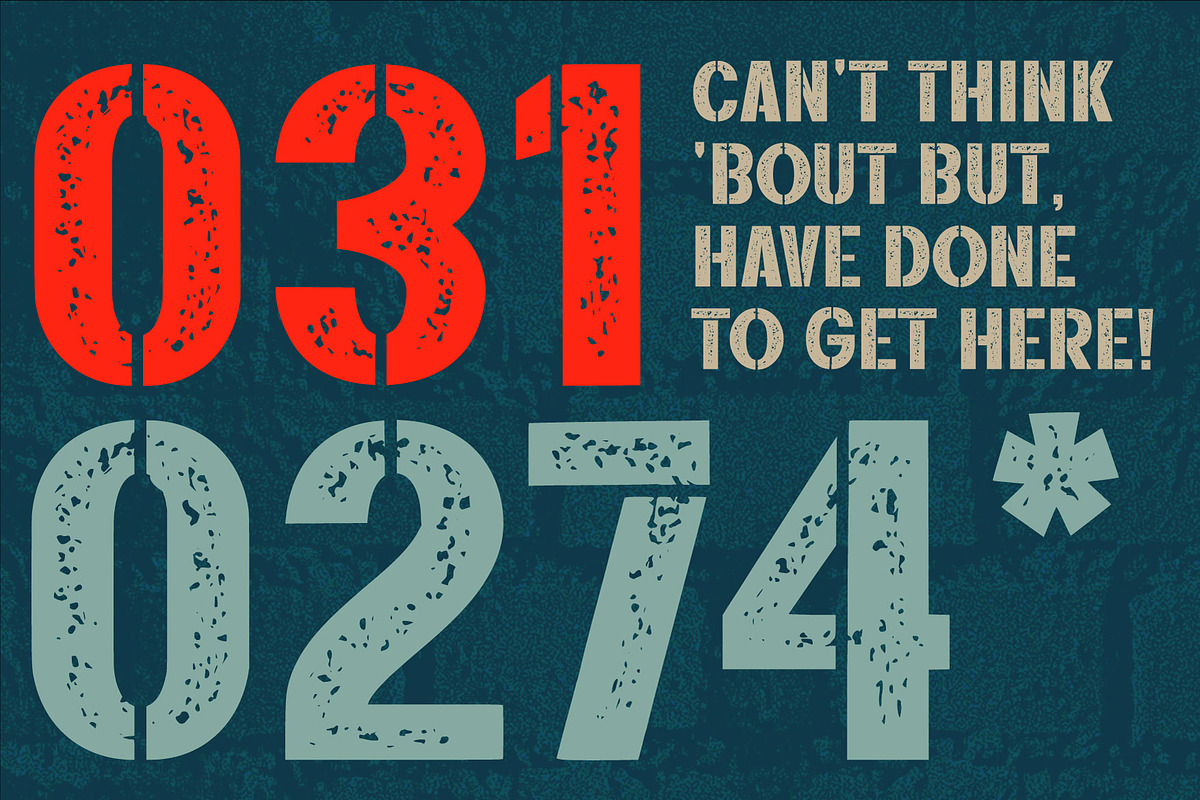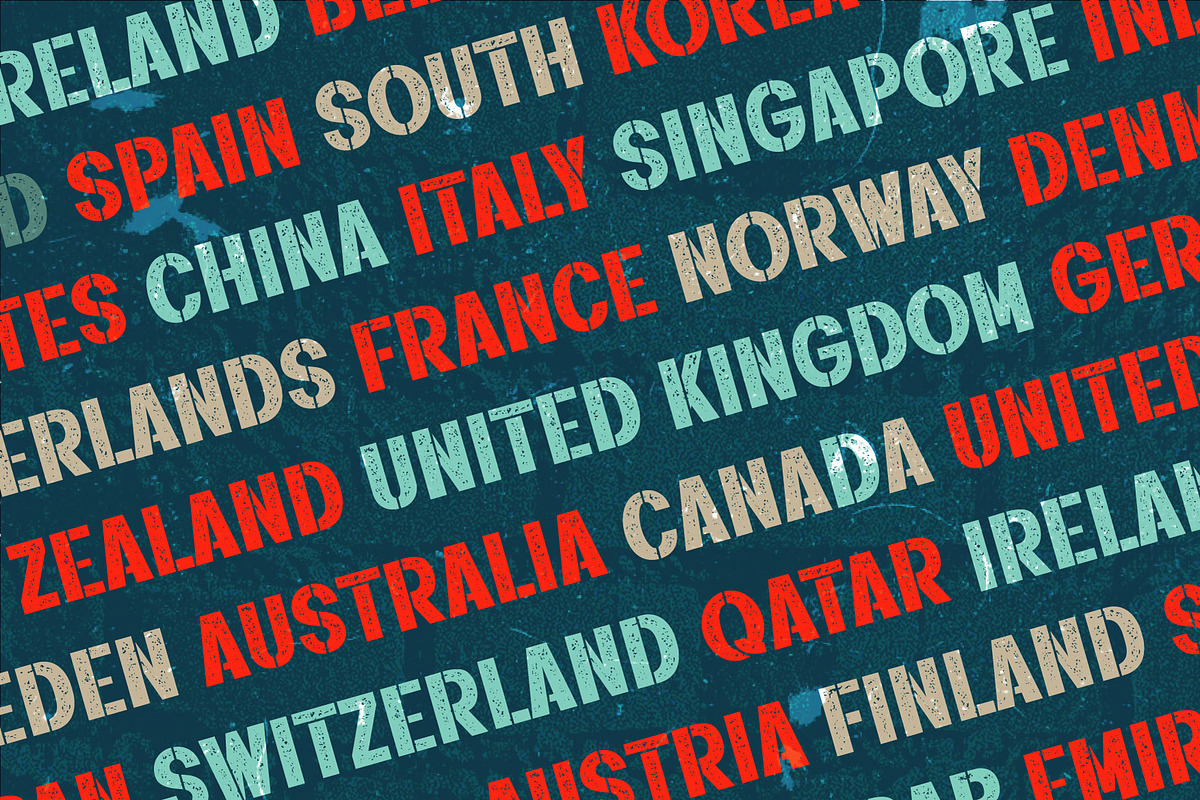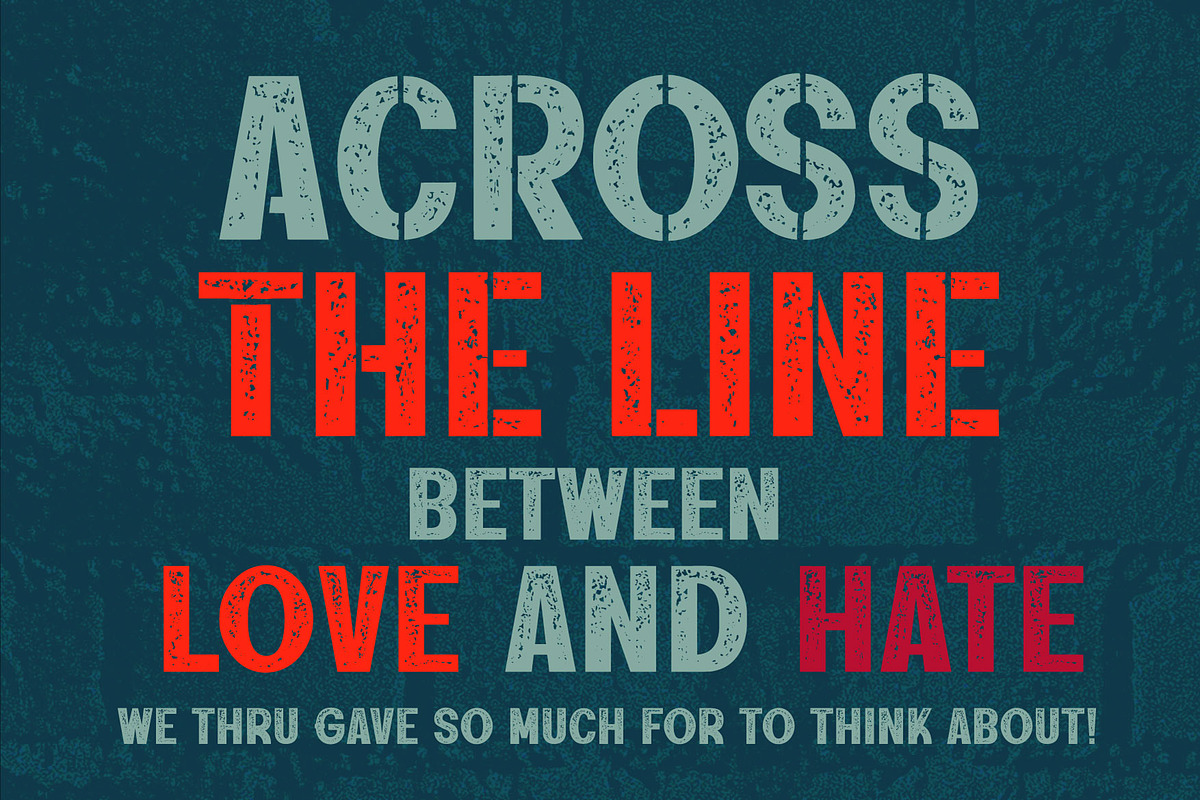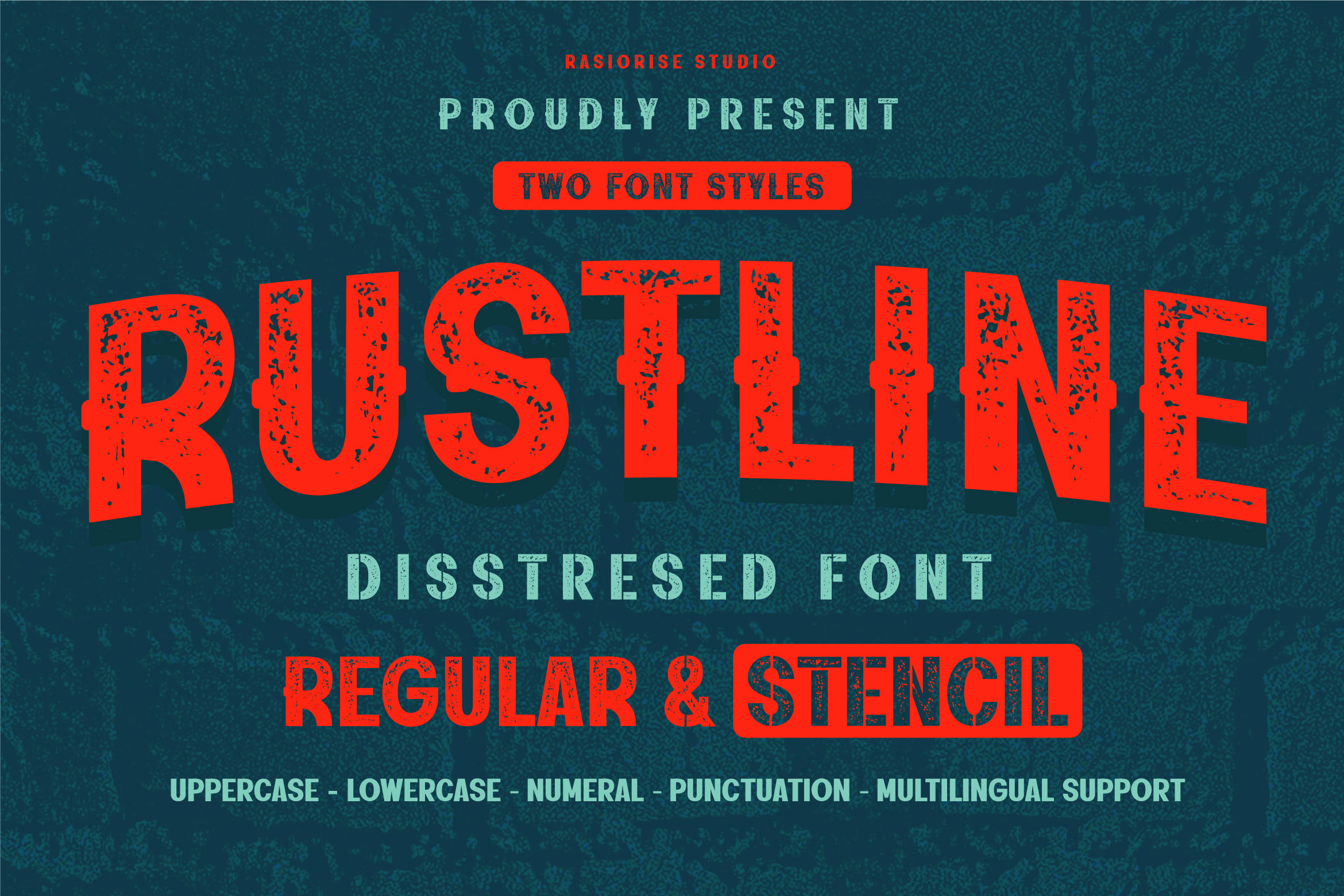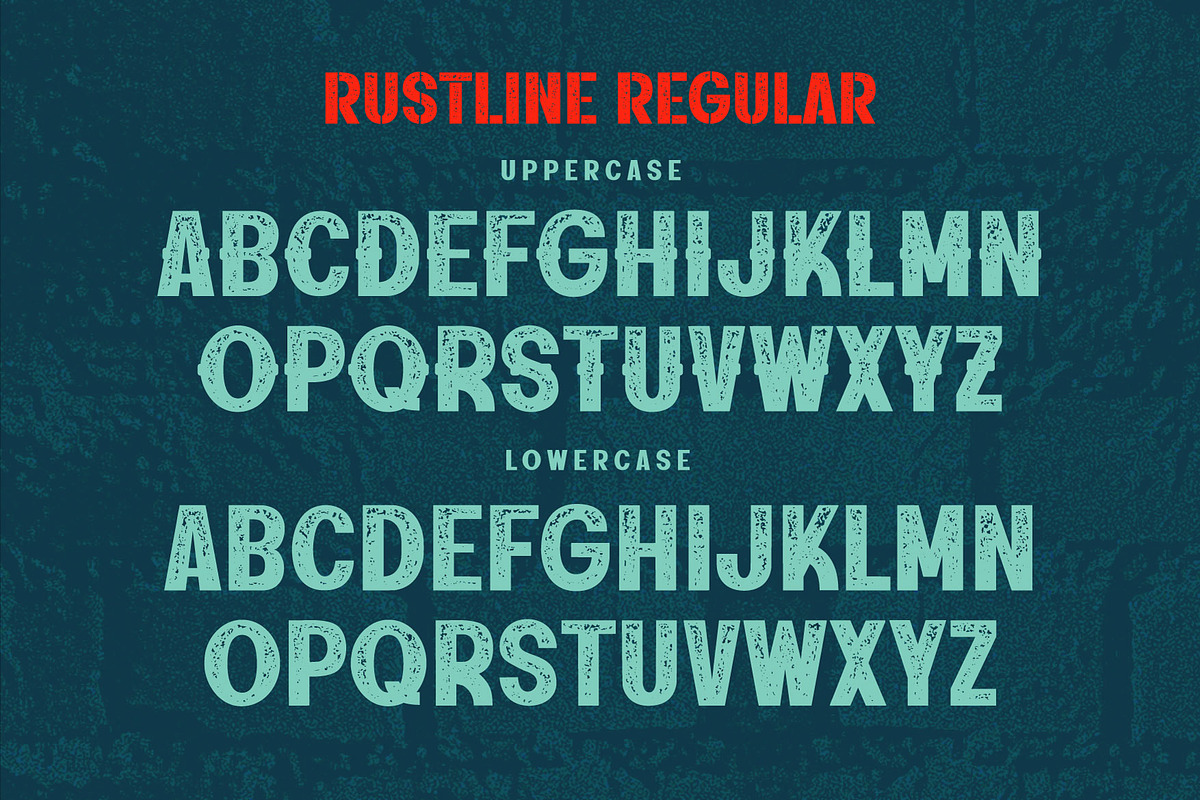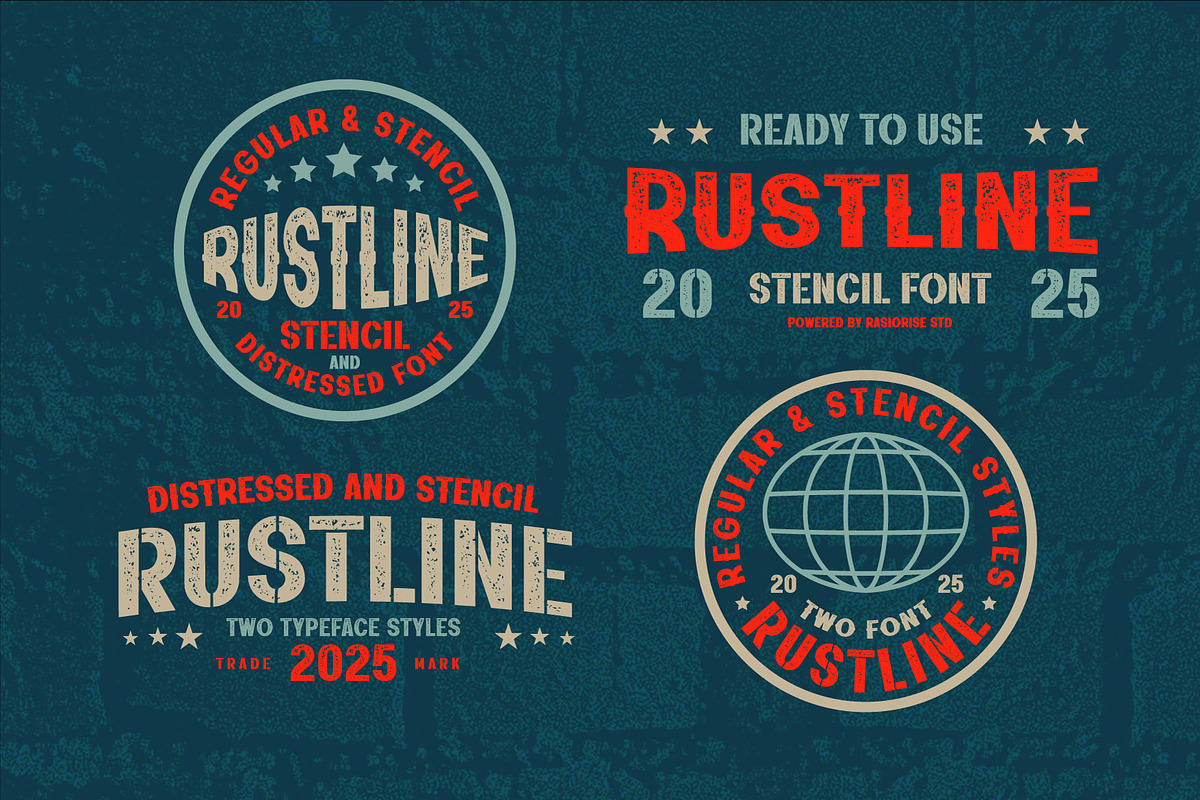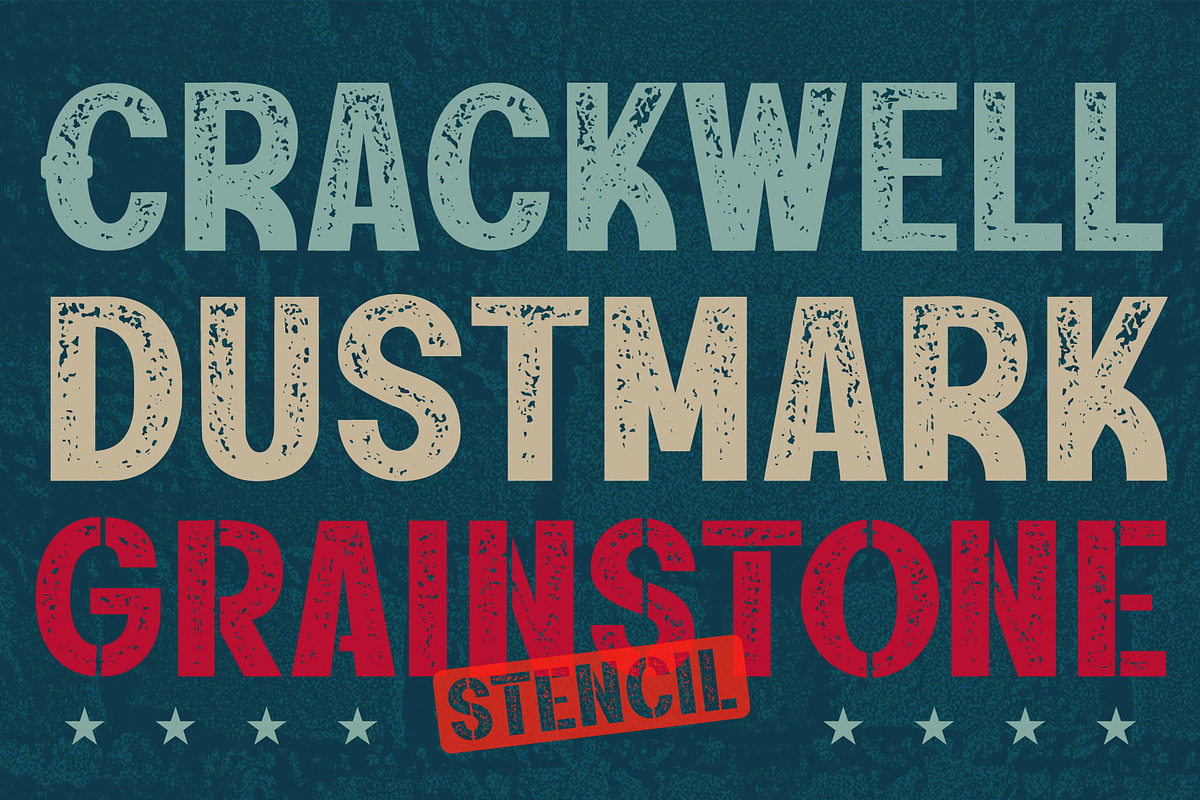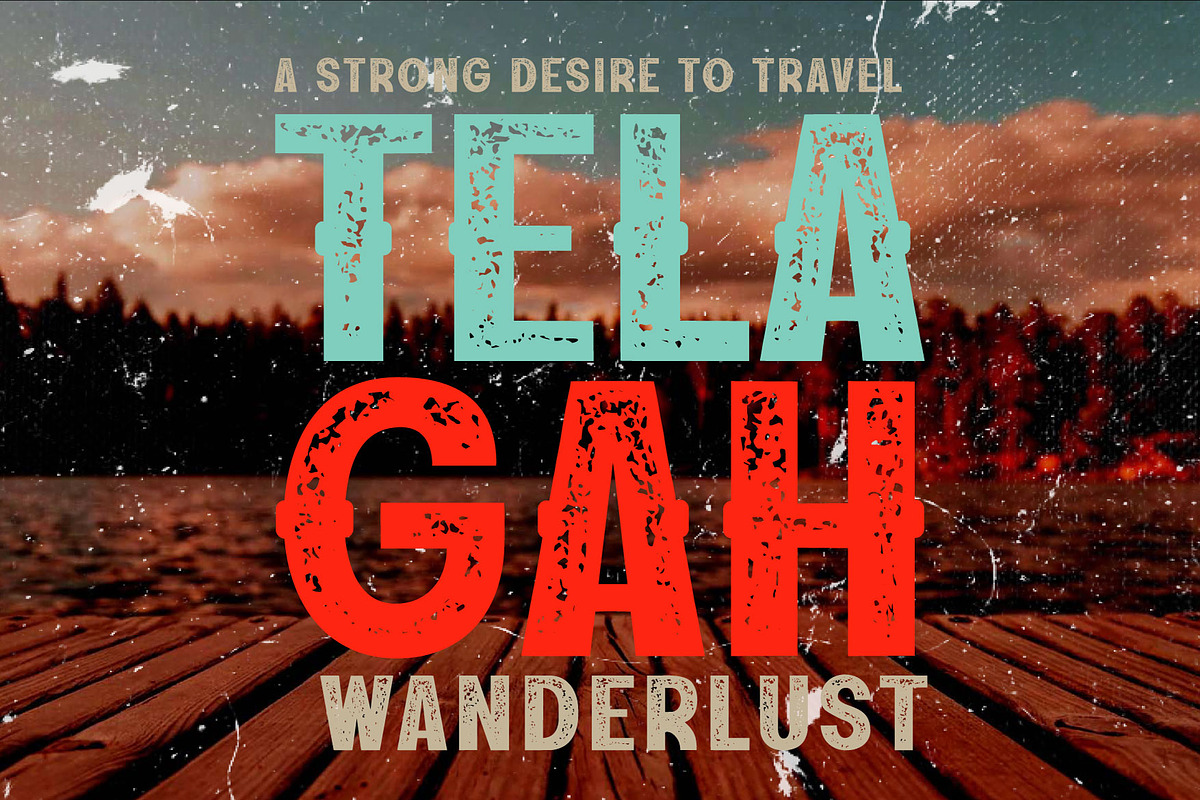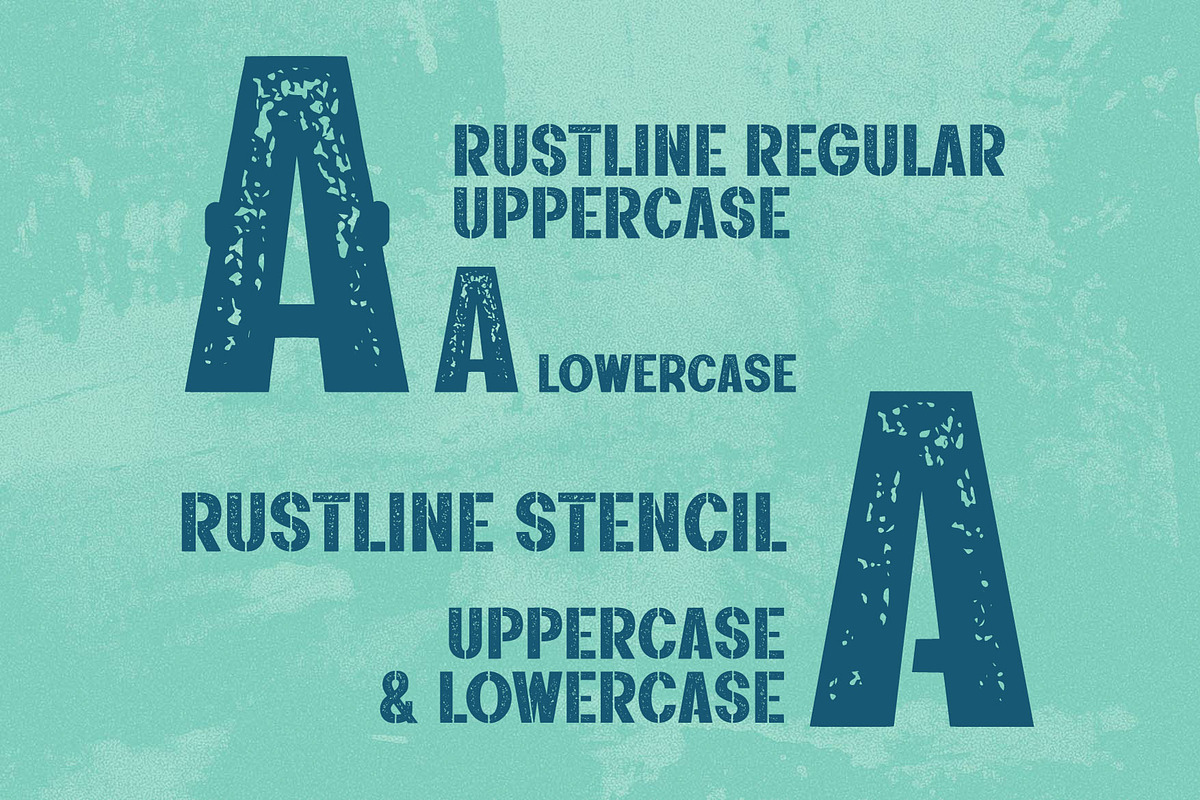
Rustline a Distressed Font
Hello Everyone! Rustline Font has been released for those of you who are looking for a two distressed font style a Regular and Stencil a unique typeface that a raw texture, rough aesthetic, blending the shape of a sans-serif Military font with an intentionally weathered or grunge appearance, The font is inspired by the Military, Stamp and worn-out industrial signage font with a few combine to turn them into a bit of a Vintage/Rustic hard styles, it delivers strong legibility with a professional edge. With easy-to-read character font for your project, also you can easily create a great and stand-out for Logos, Badge, Headline, Packaging, Apparel, Tactical Gear Label, Book Cover and Social Media Graphic.